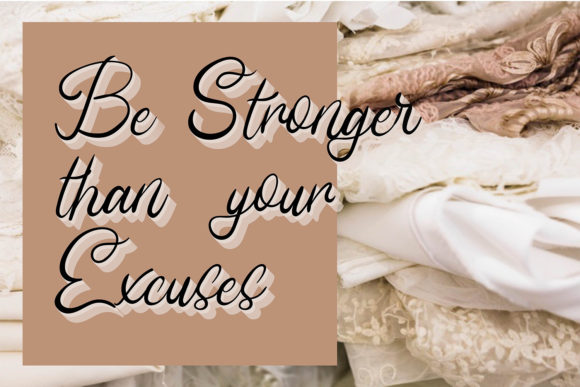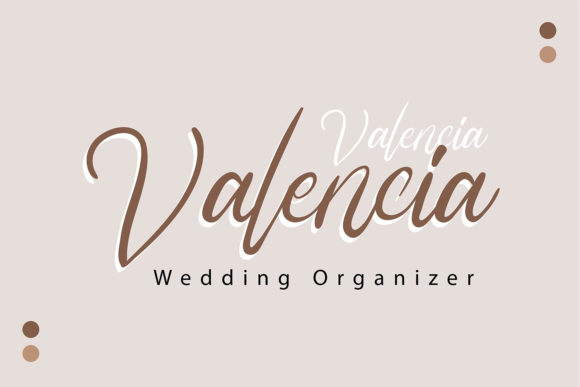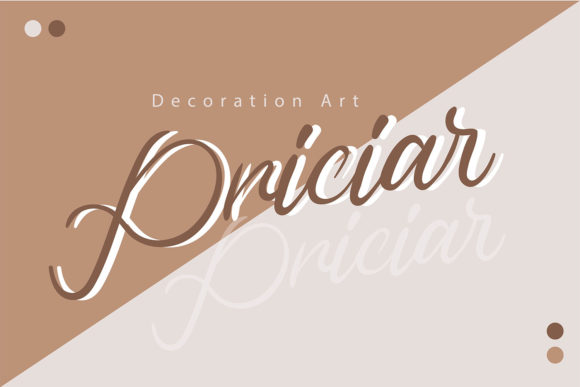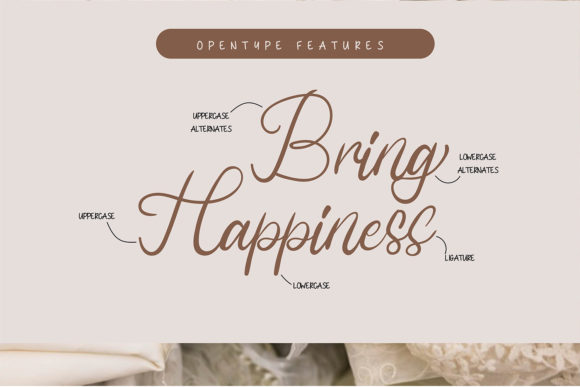
About Affiliate Font
Affiliate is a unique and elegant handwritten font. It looks beautiful on a variety of designs requiring a personalized style, such as wedding invitations, thank you cards, weddings, greeting cards, logos and so on. Affiliate is PUA encoded which means you can access all of the amazing glyphs and ligatures with ease!